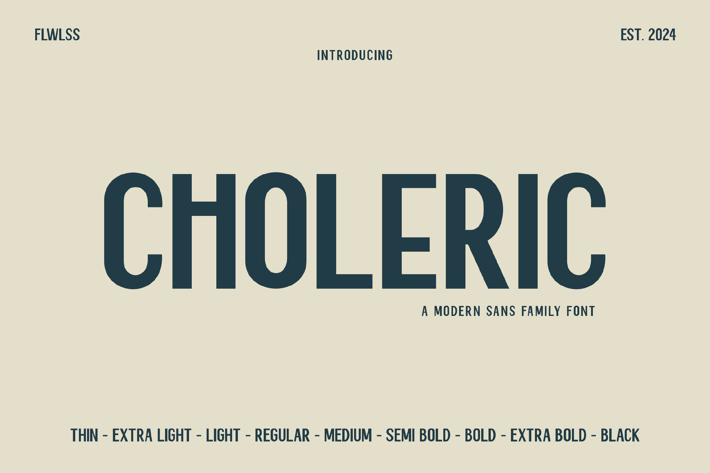
Choleric Sans Serif Font Family
Choleric is a versatile modern sans serif font family consisting of various weights ranging from thin to black styles, including thin, extra light, light, regular, medium, semi-bold, bold, extra bold, and black. Each style within the Choleric family maintains a strong and assertive impression with balanced characters. Perfect for branding, editorial design, wedding, invitation, branding, logo, magazine, t-shirt, print, and more, Louis Walter offers versatility and elegance in every letter.